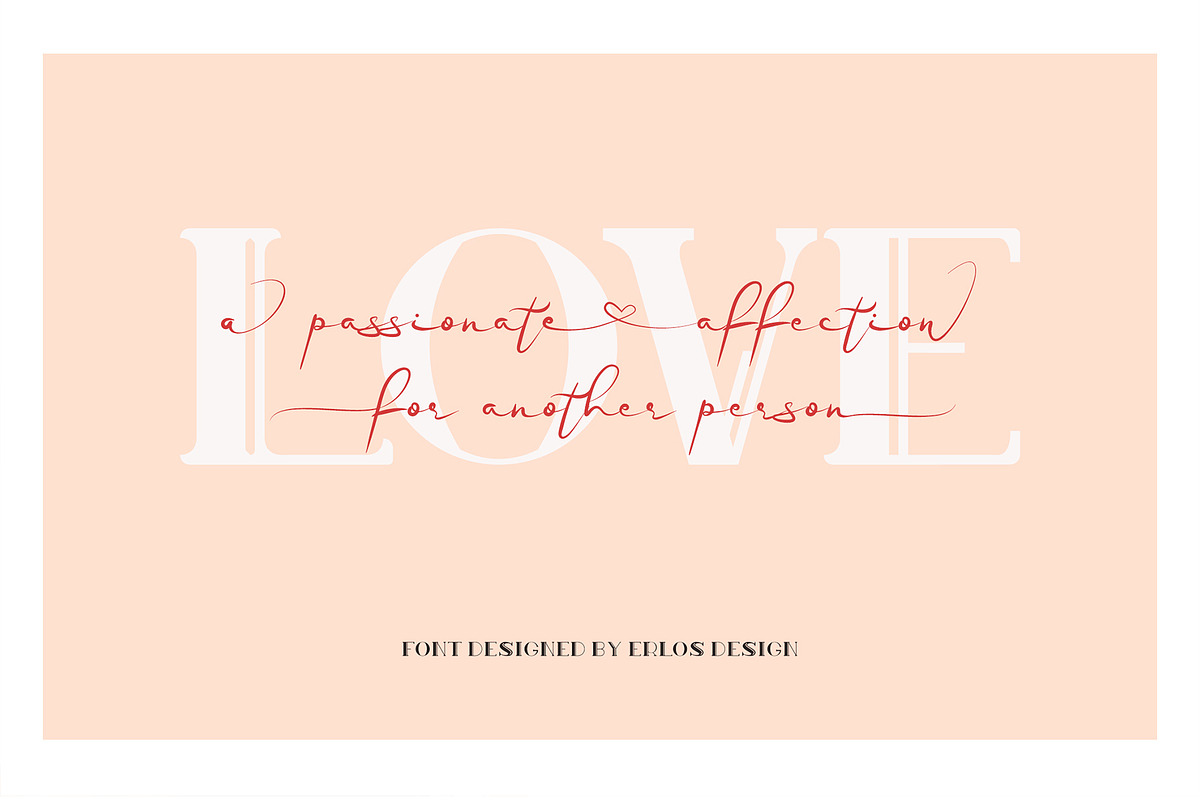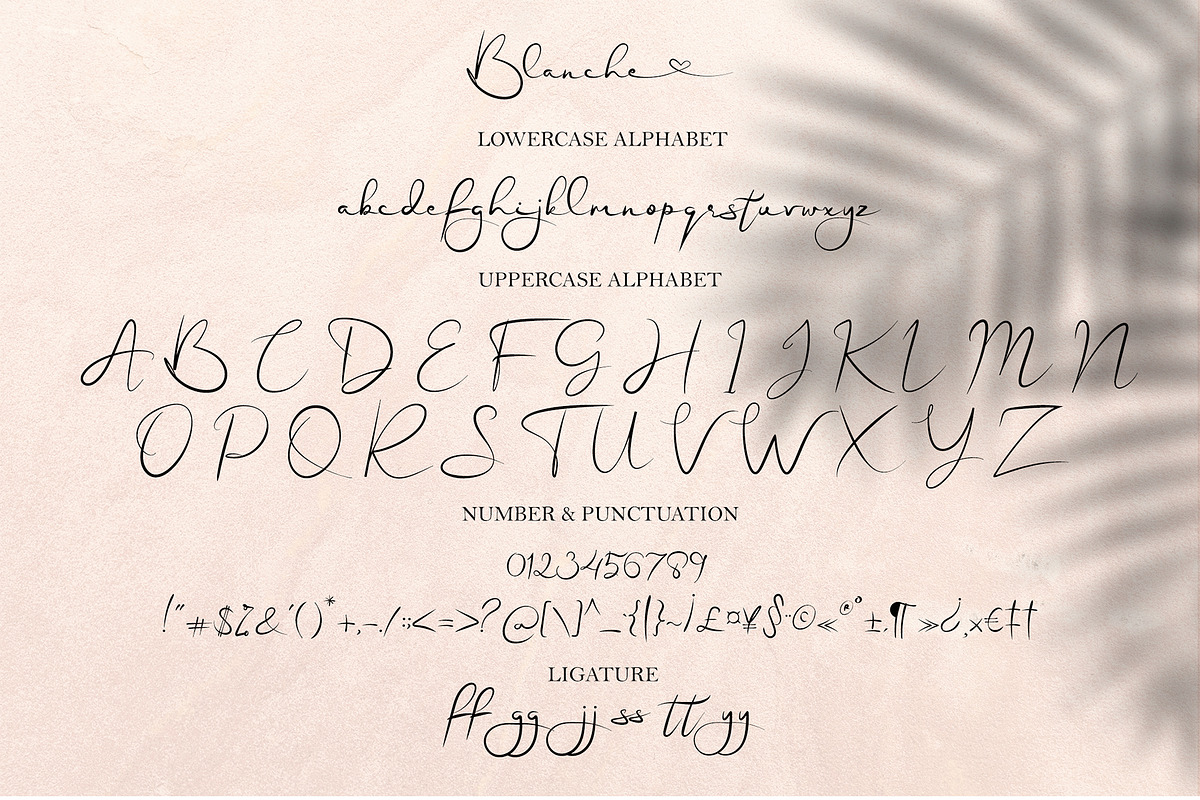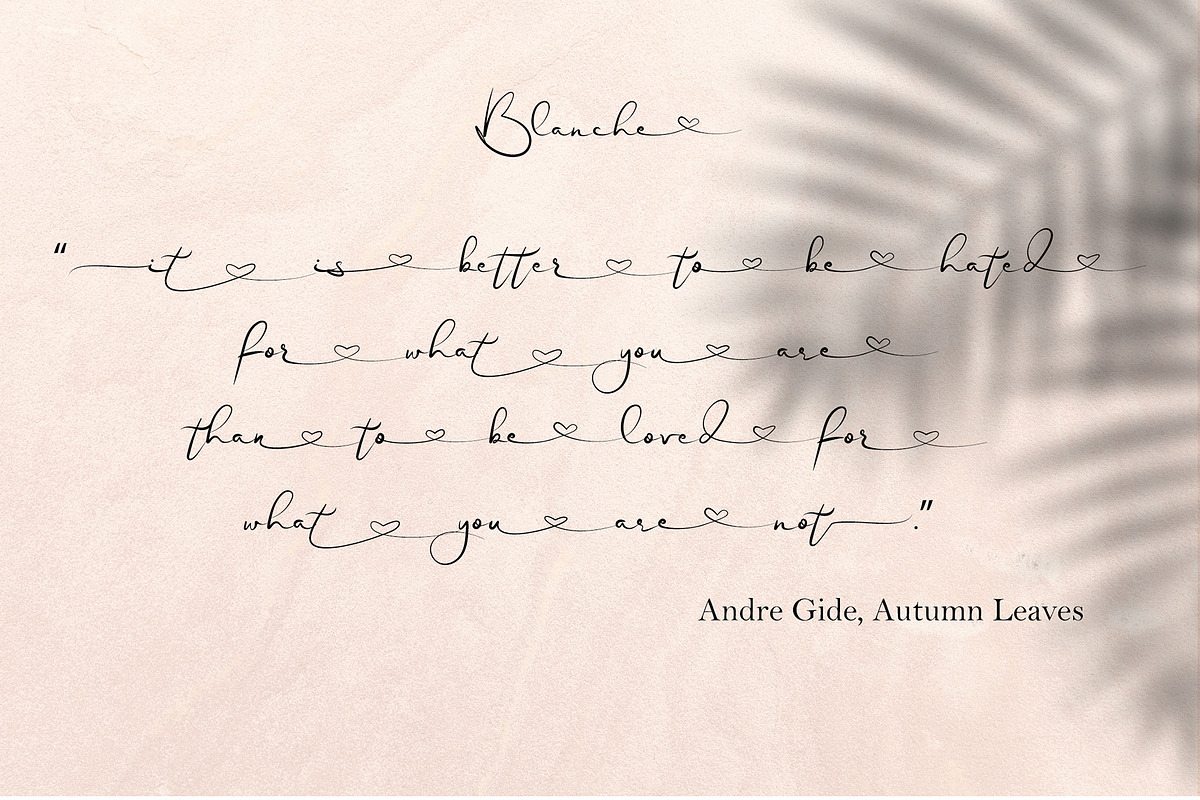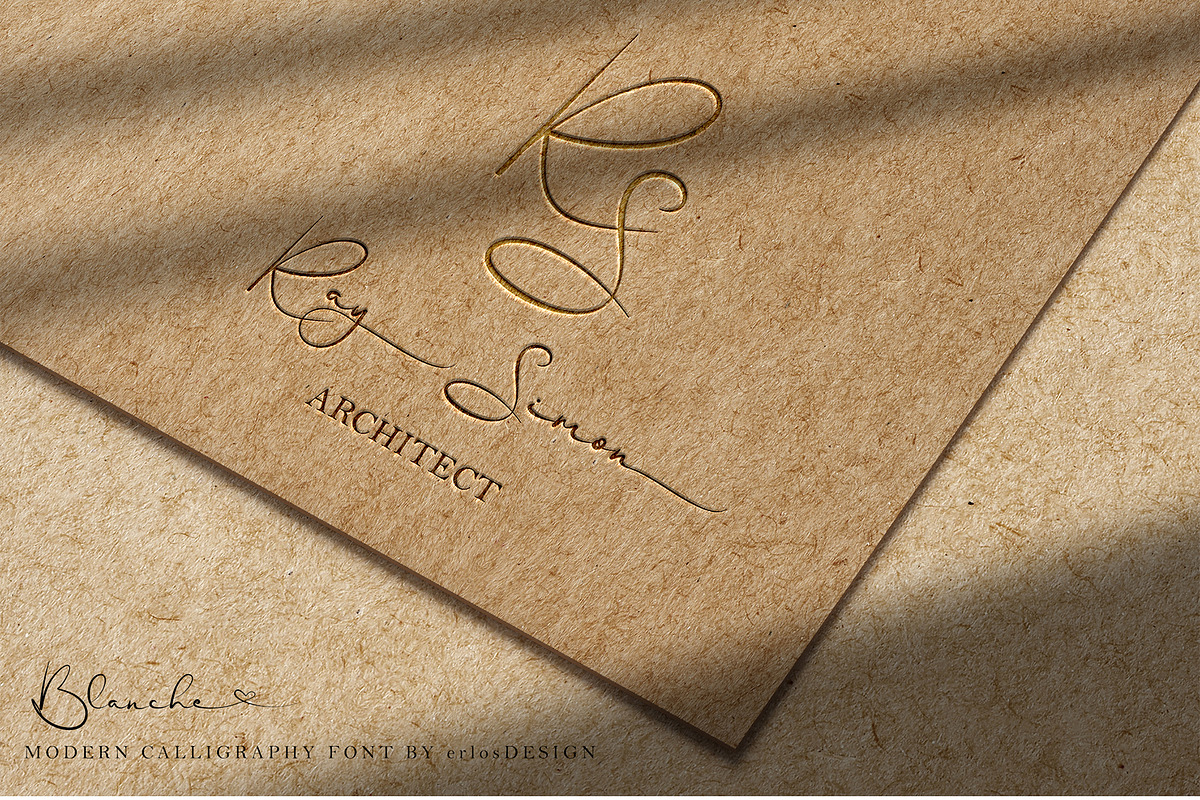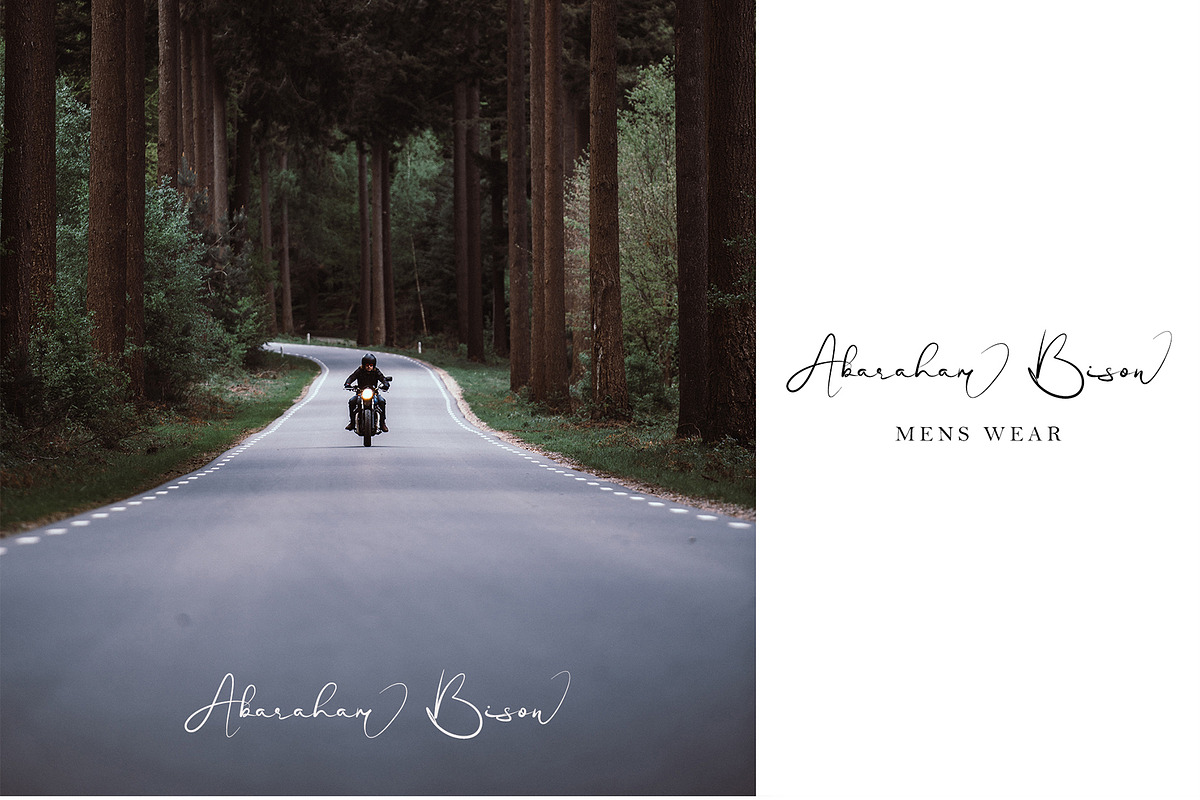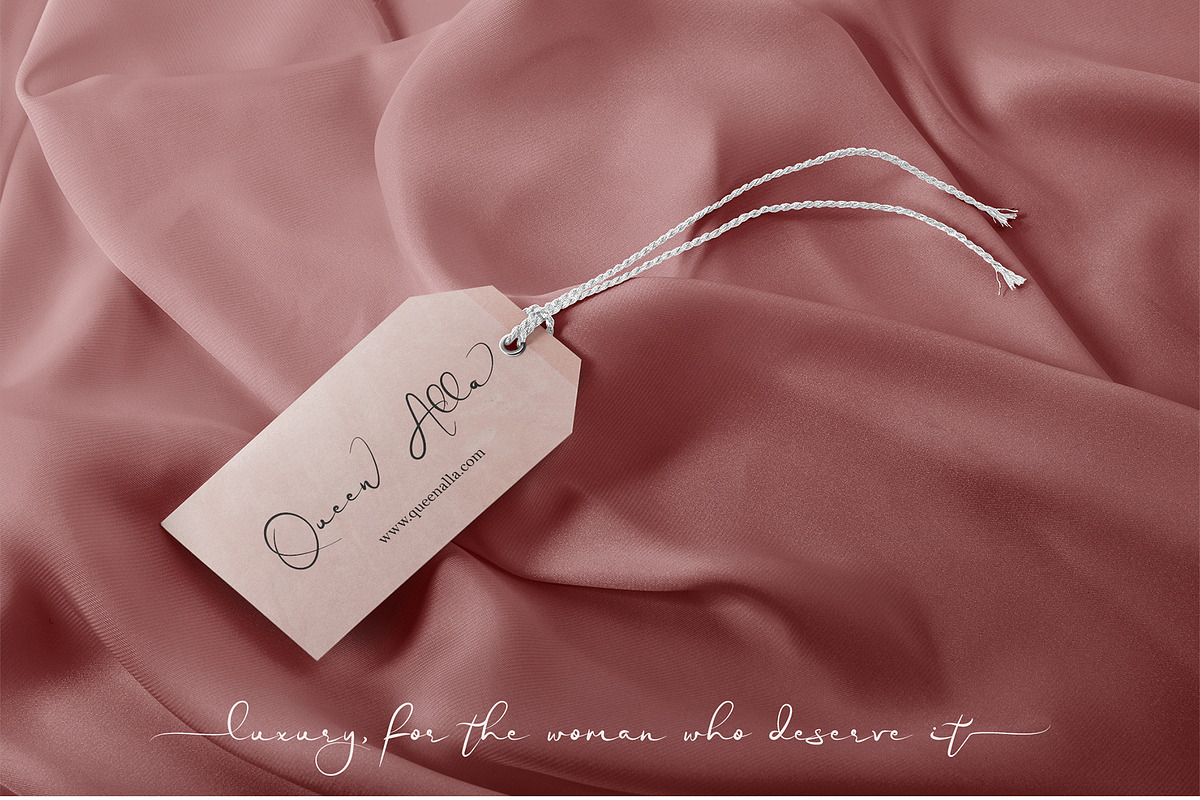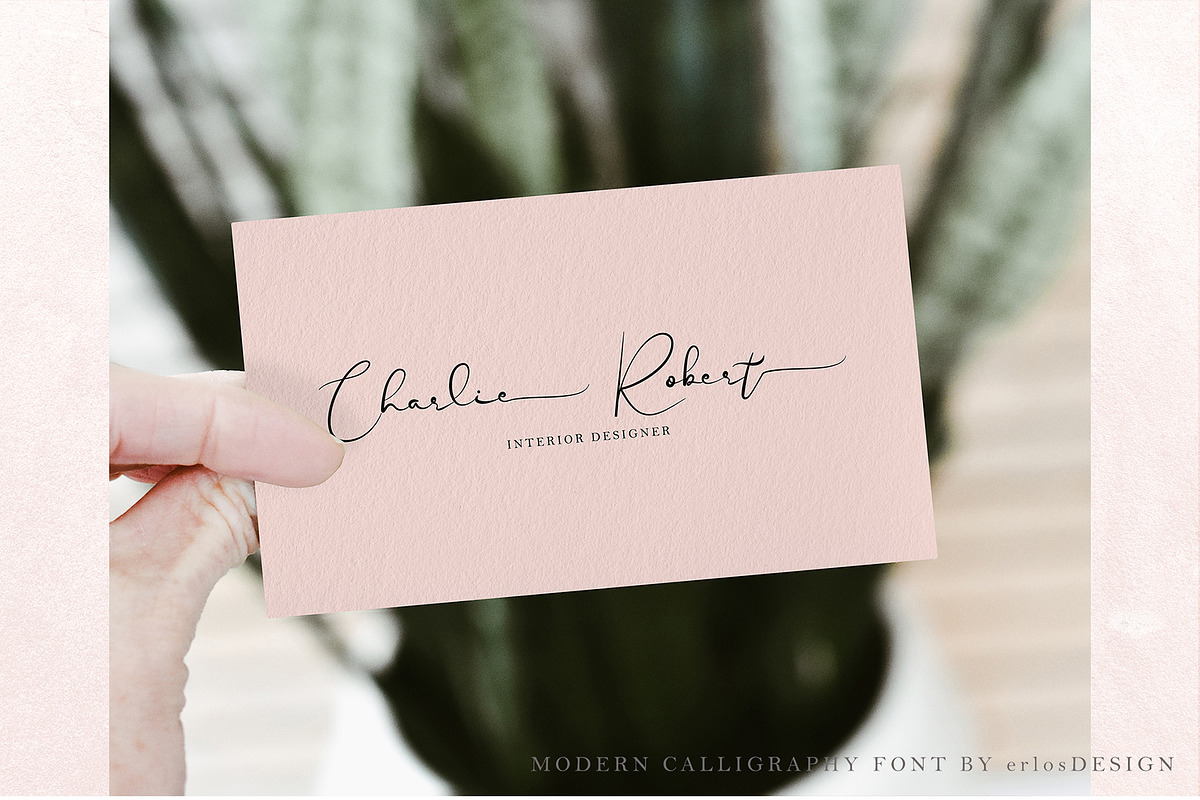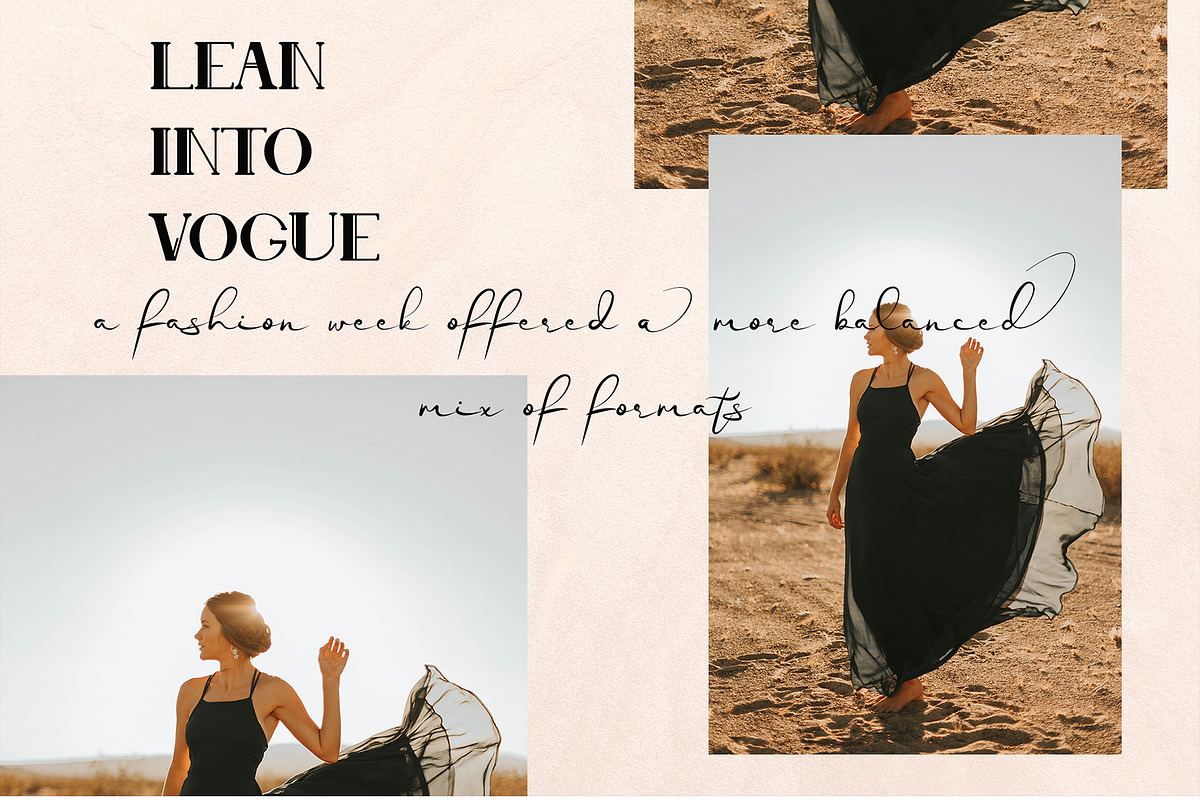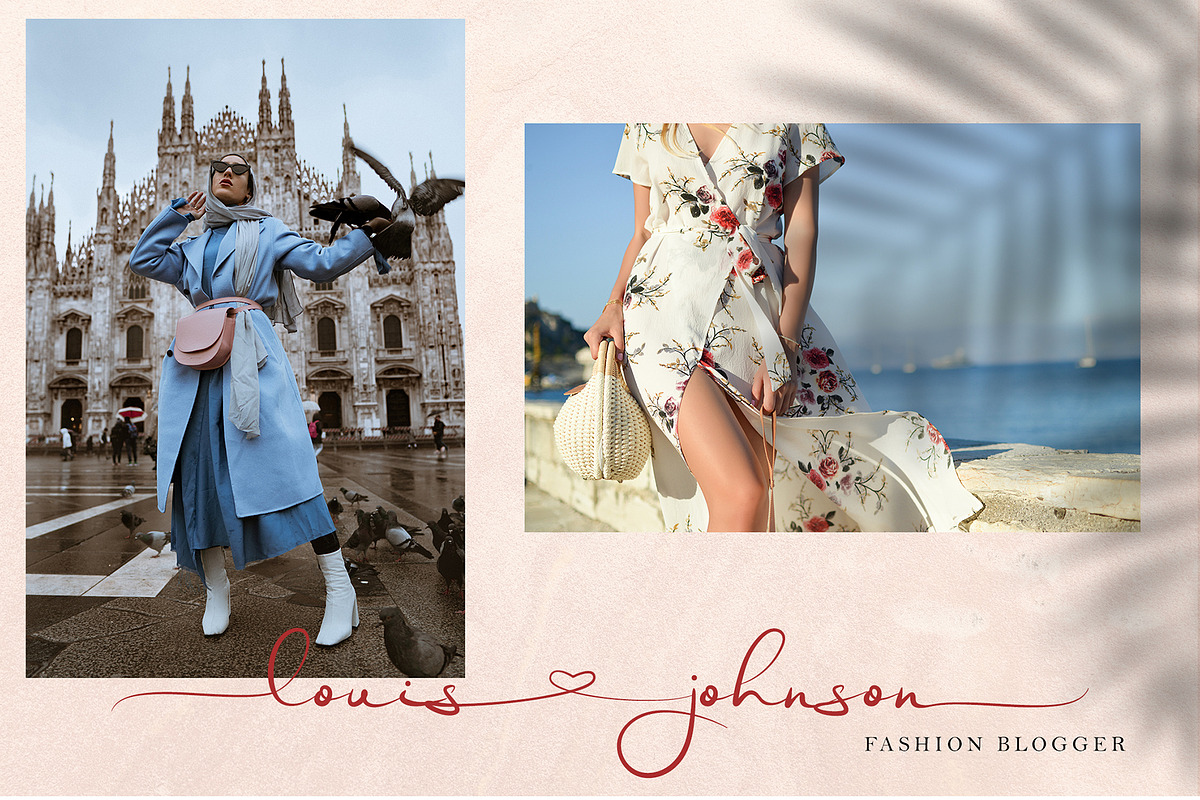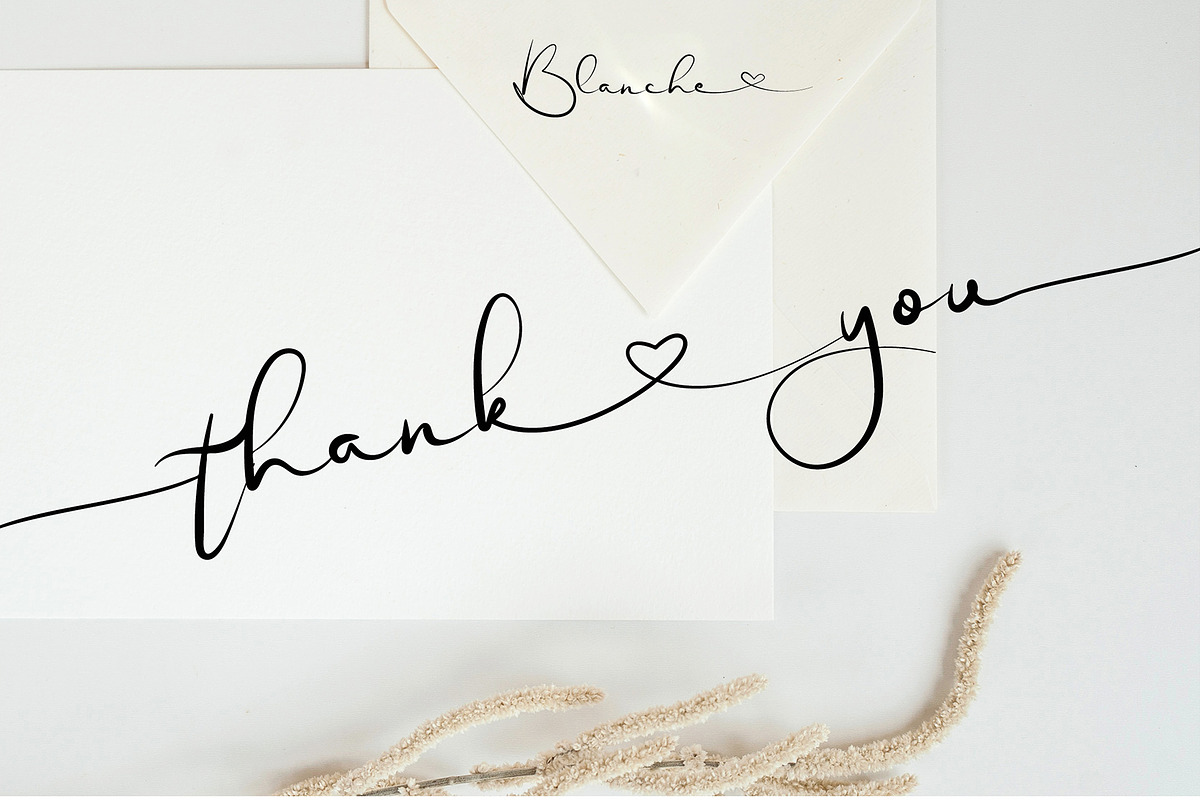
Blanche - Signature Font
Blanche - Signature Font by erlosDESIGN
Blanche is a delicate, elegant and flowing handwritten font. It has beautiful and well balanced characters and as a result, it matches a wide pool of designs. Blanche features a varying baseline, smooth lines, gorgeous glyphs and stunning alternates. Add it to your most creative ideas and notice how it makes them come alive!